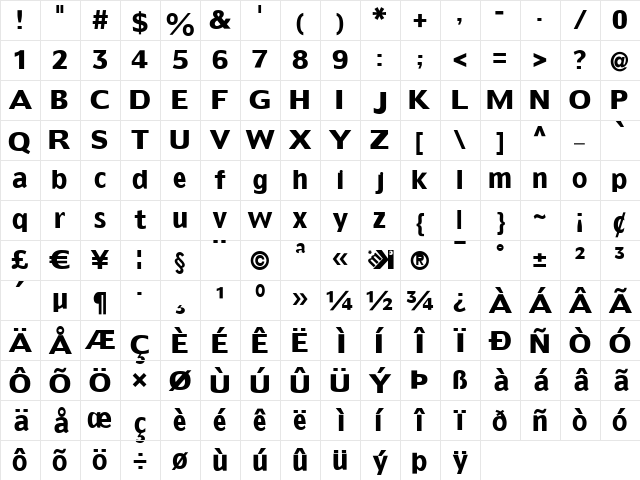
GrotesqueBoldTallX Regular
Design Context for GrotesqueBoldTallX Typeface
GrotesqueBoldTallX offers clean, dependable letterforms without strong stylistic allegiance, making it a practical choice for designers who need flexibility. The heavy weight commands attention and anchors typographic hierarchies.